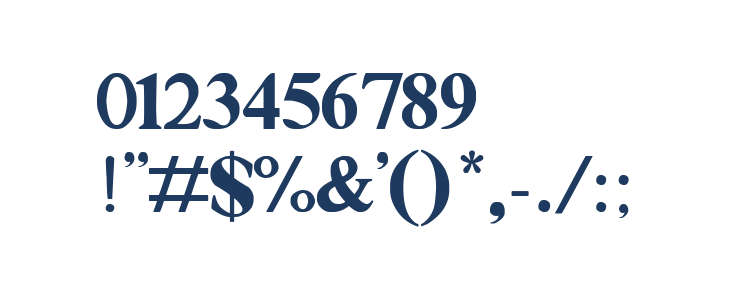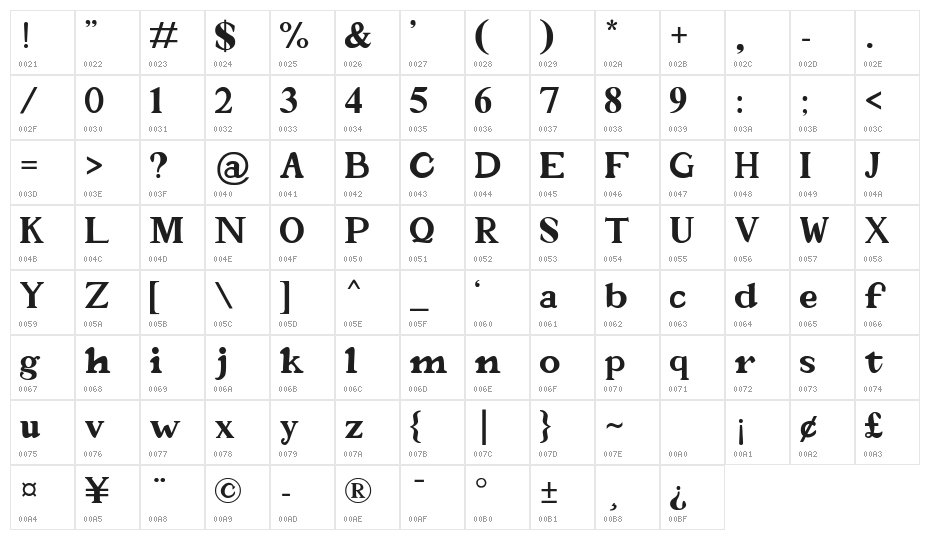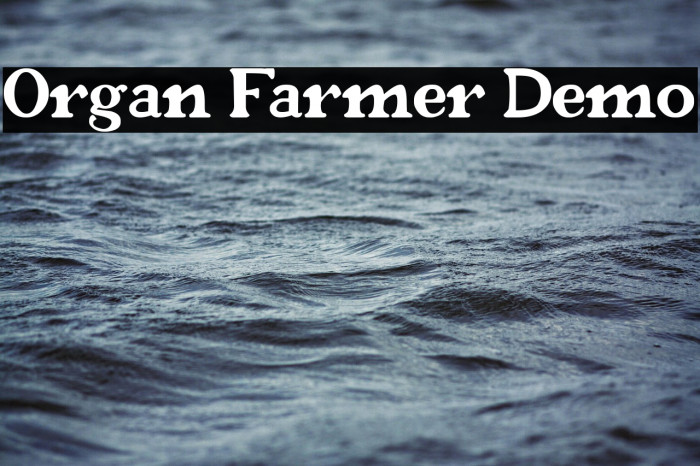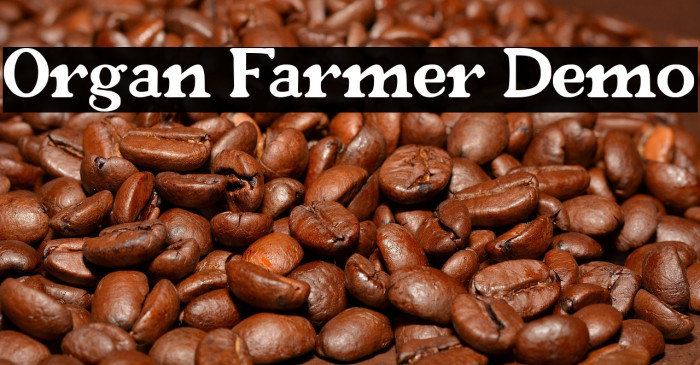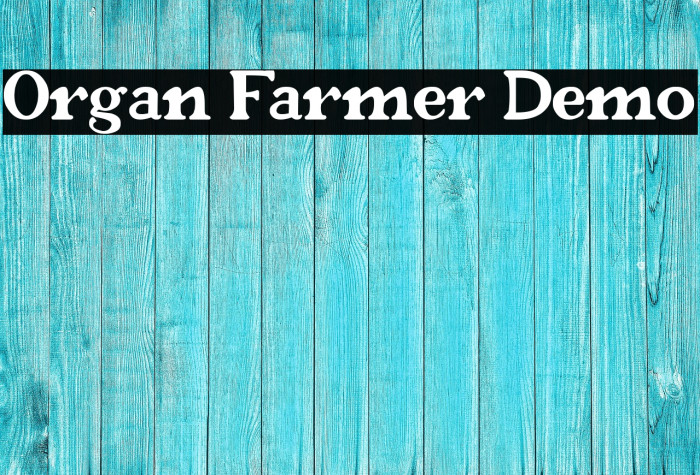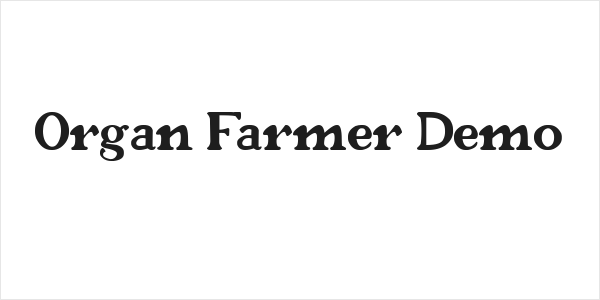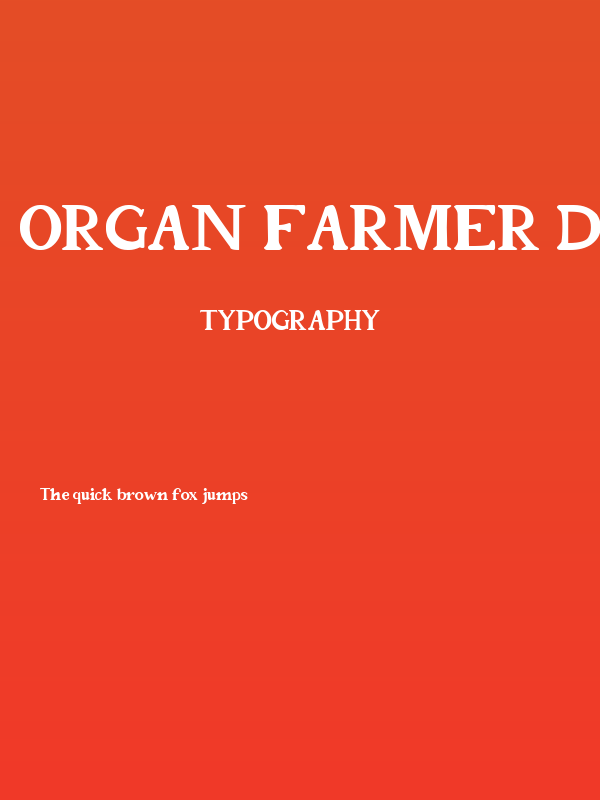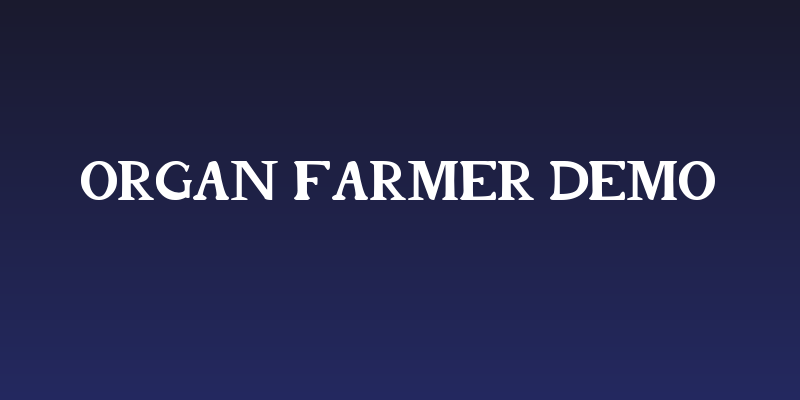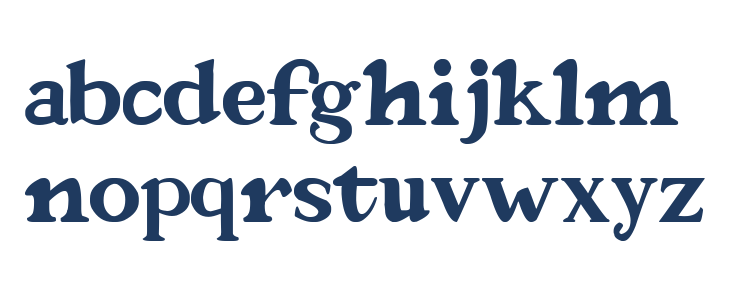
Organ Farmer Demo Font
Organ Farmer Demo Description
This font features a bold and expressive style with high contrast between thick and thin strokes, giving it a dramatic and eye-catching appearance. The serifs are pronounced, adding a touch of elegance and sophistication. The uppercase letters are strong and commanding, while the lowercase letters maintain a consistent flow with slightly rounded edges. The numerals are clear and distinct, ensuring readability. Special characters are designed with the same attention to detail, making them suitable for various applications. Overall, this font combines traditional serif elements with a modern twist, making it versatile for both classic and contemporary designs.
| Use Case | Headlines, Logos, Editorial design |
| Proposed Projects | Ideal for use in branding, editorial design, book covers, and high-impact headlines. |